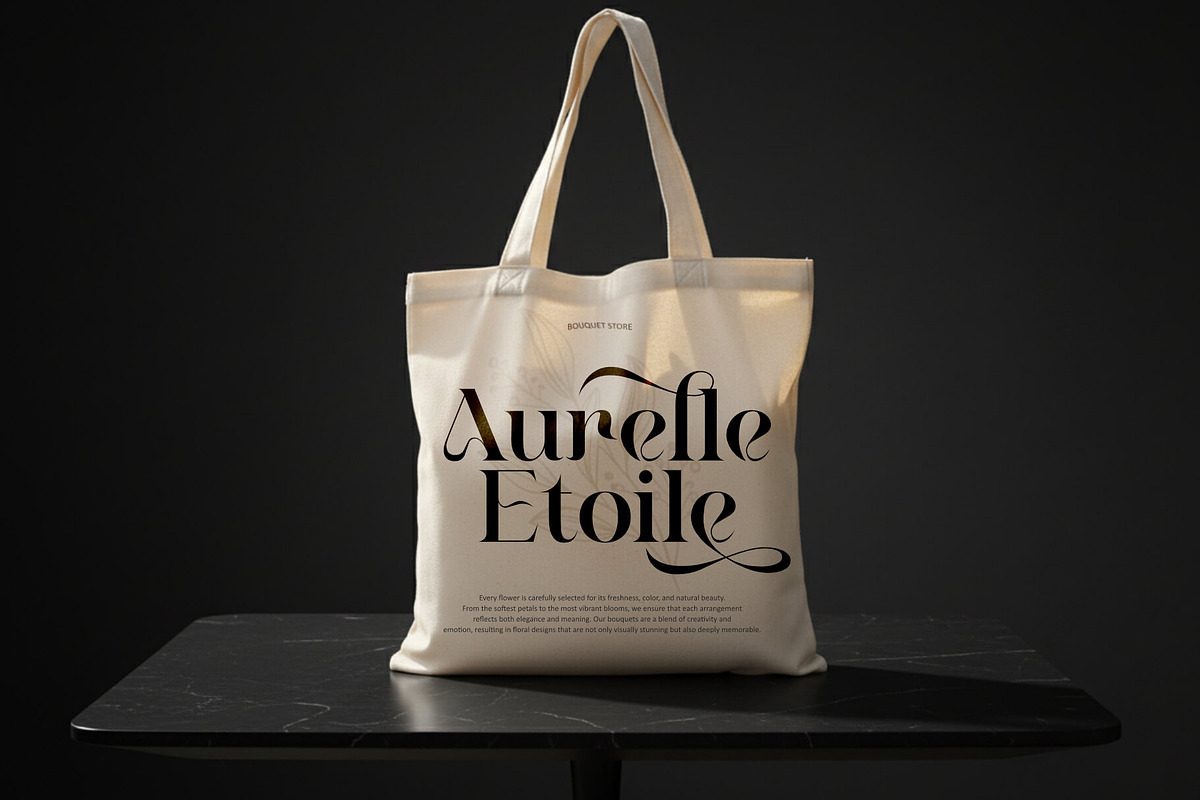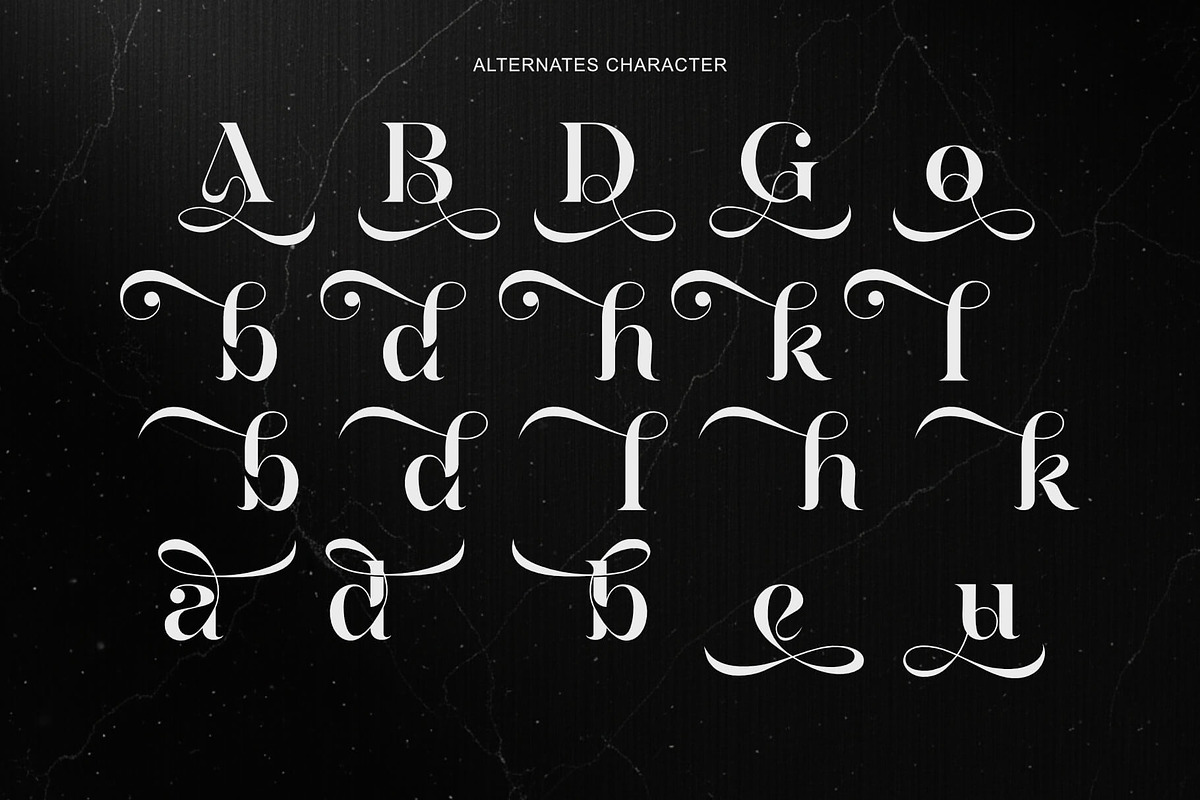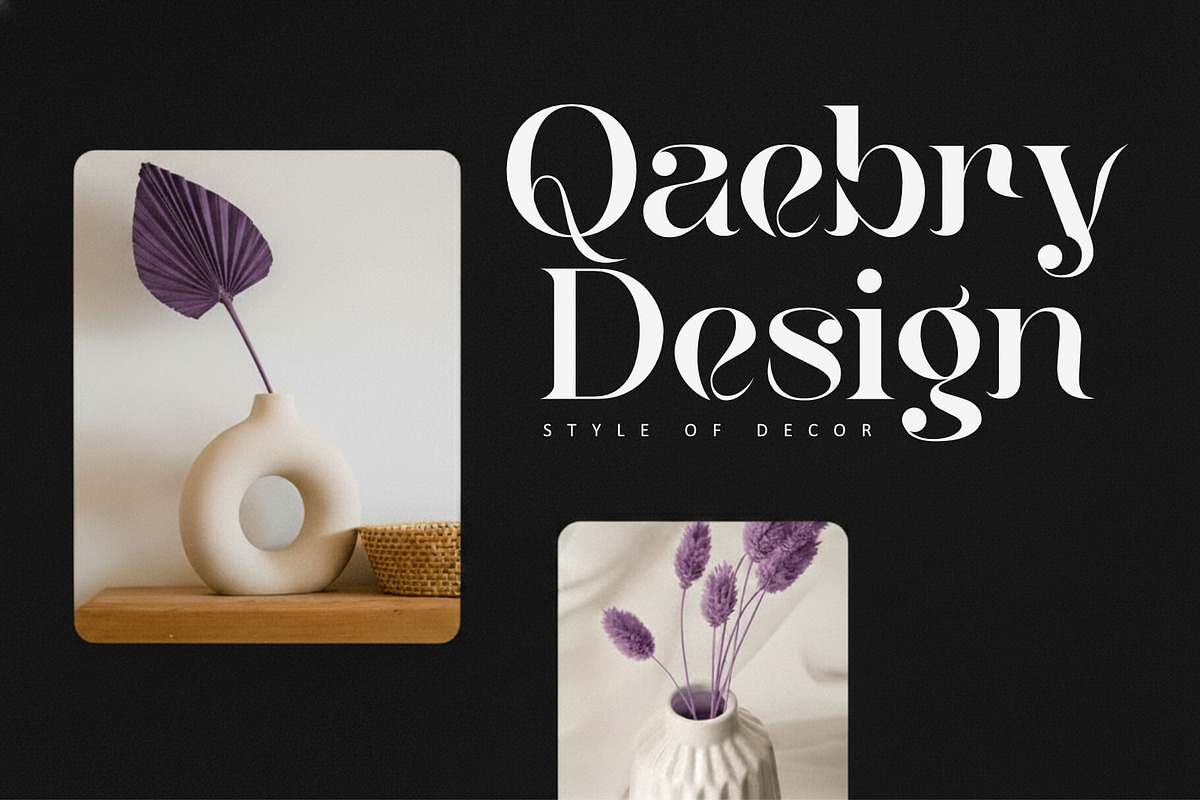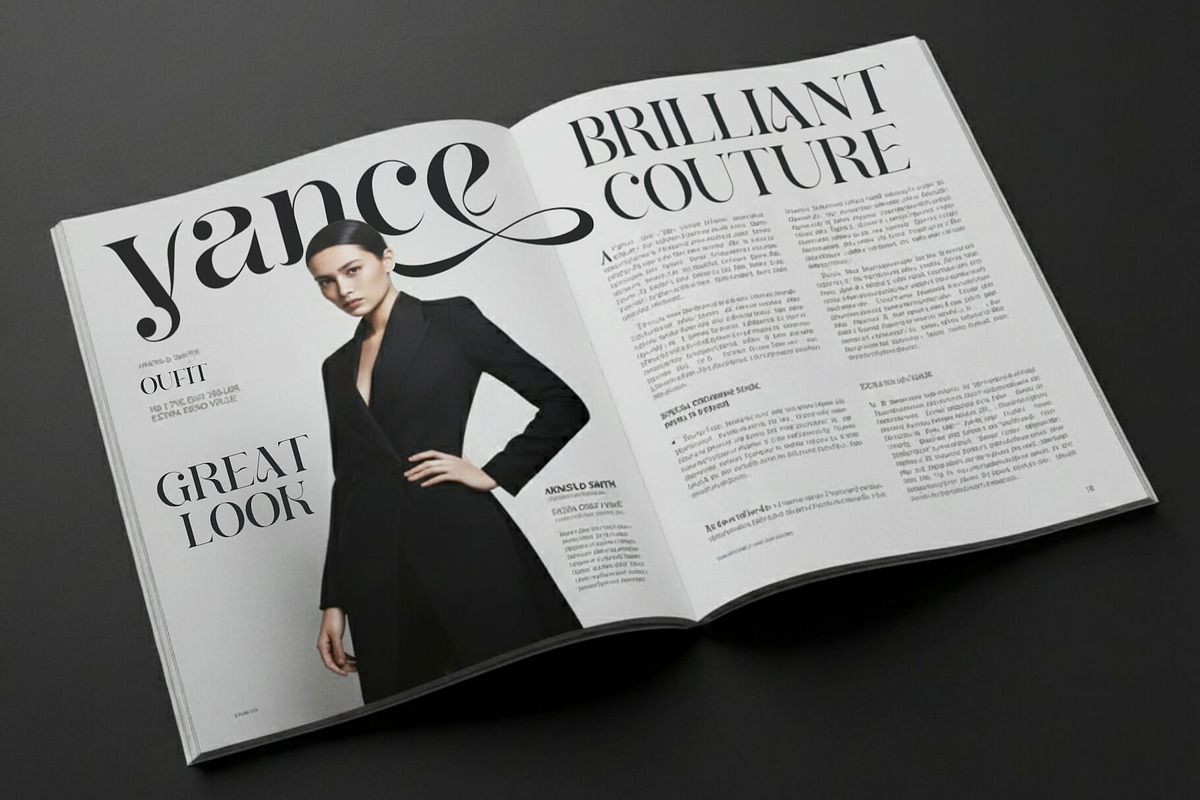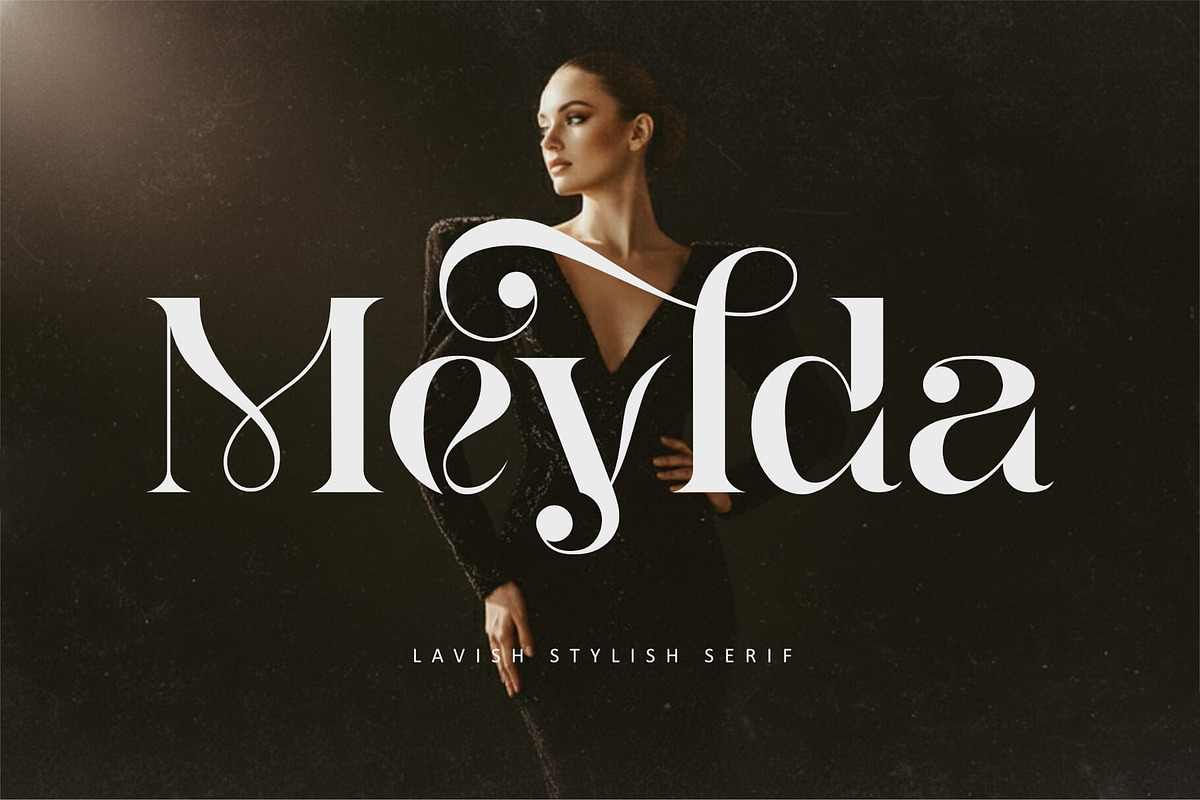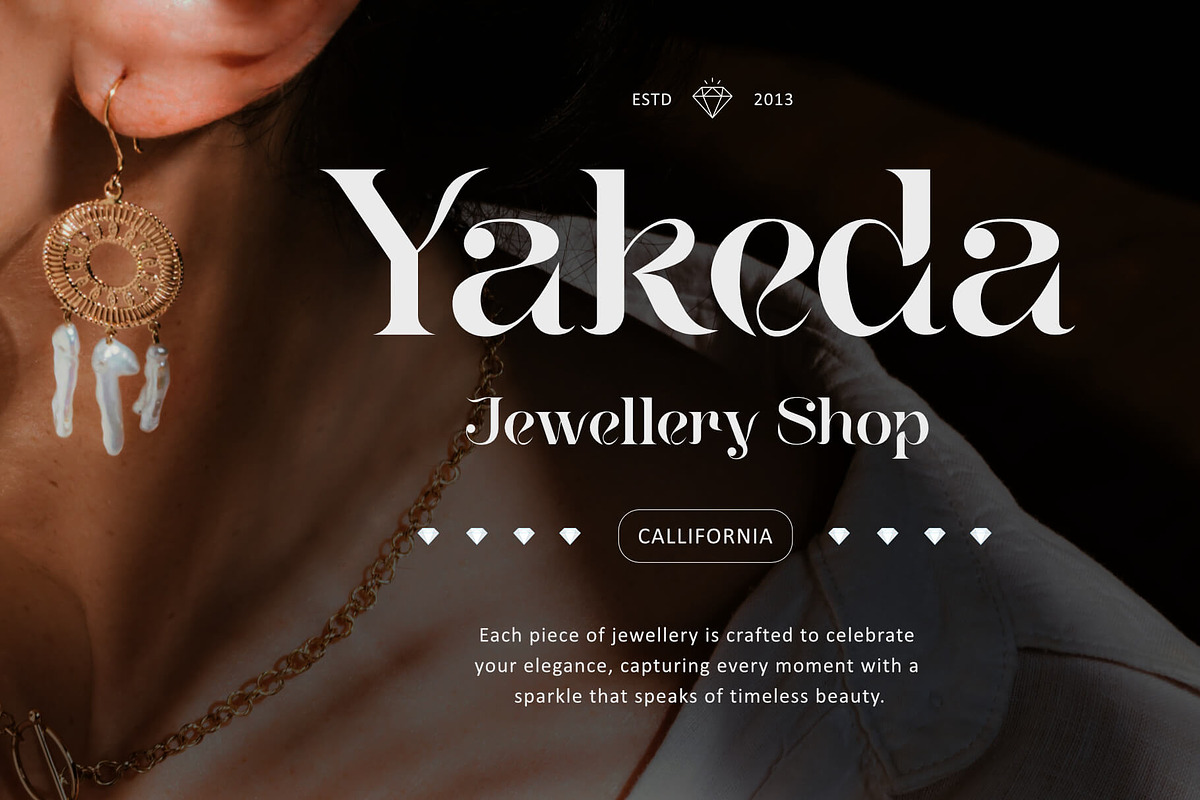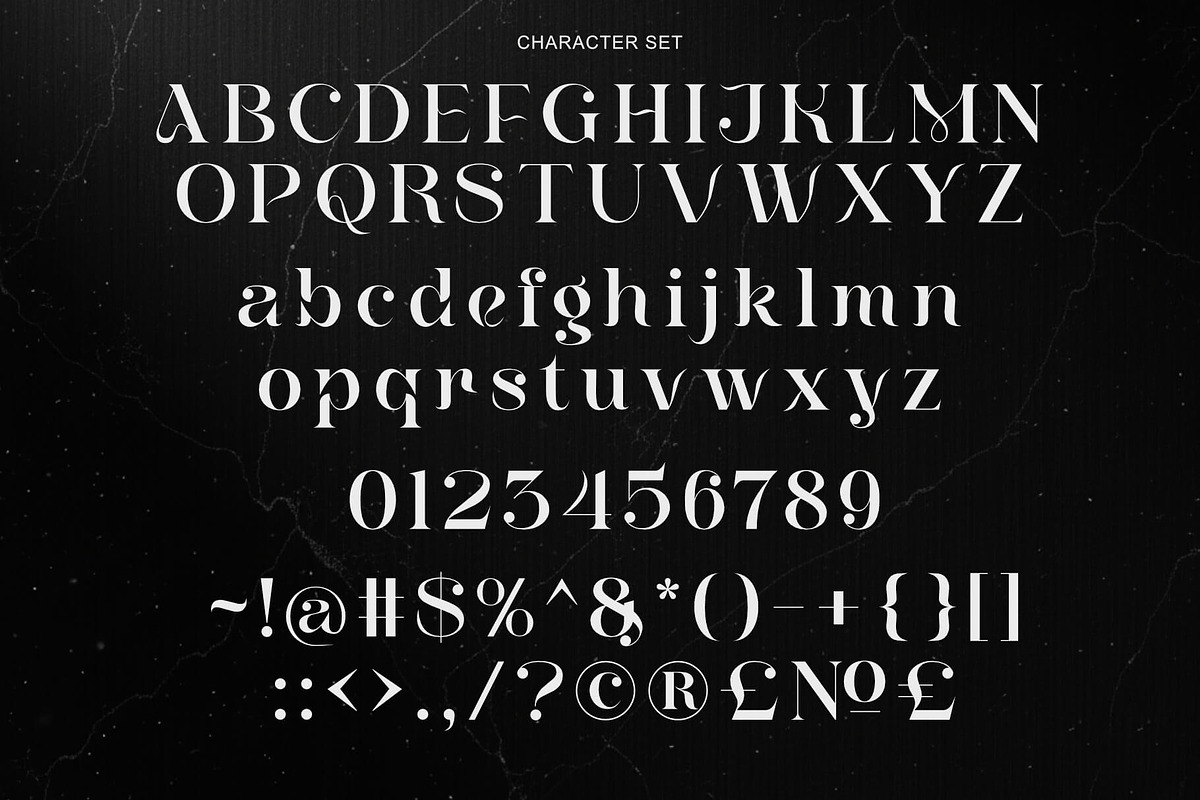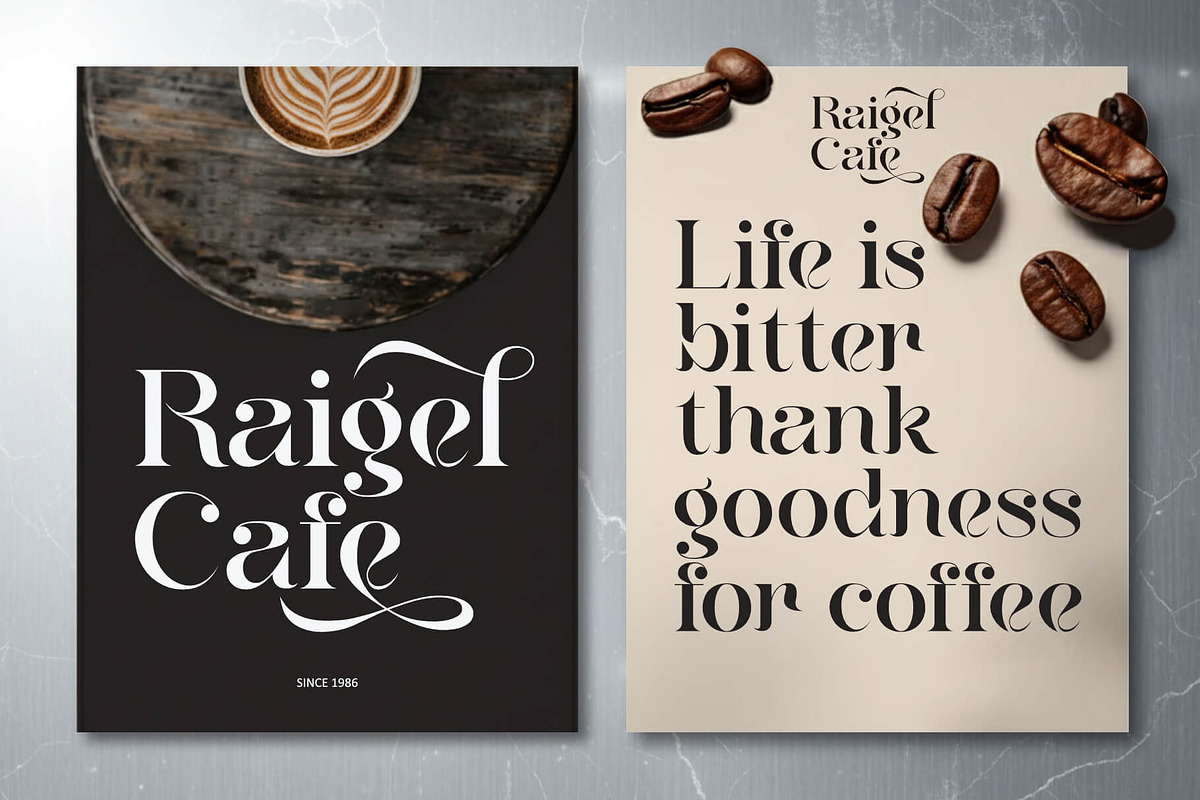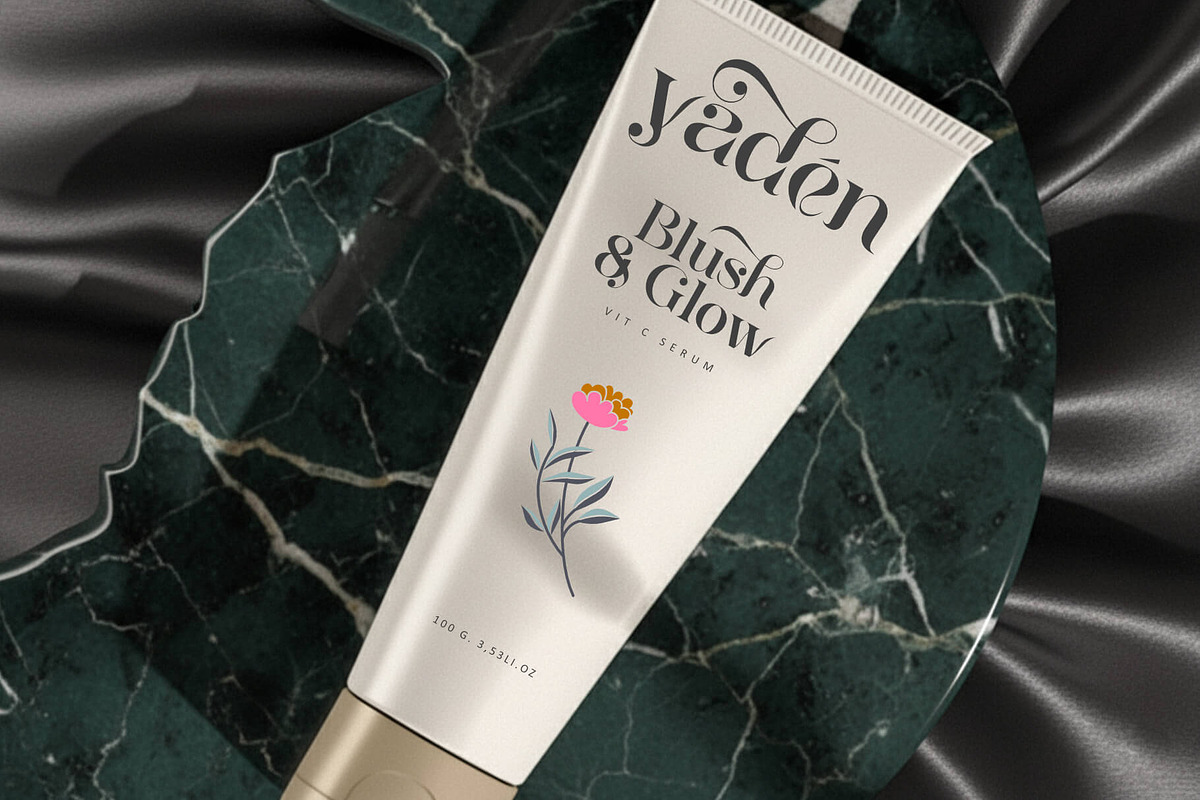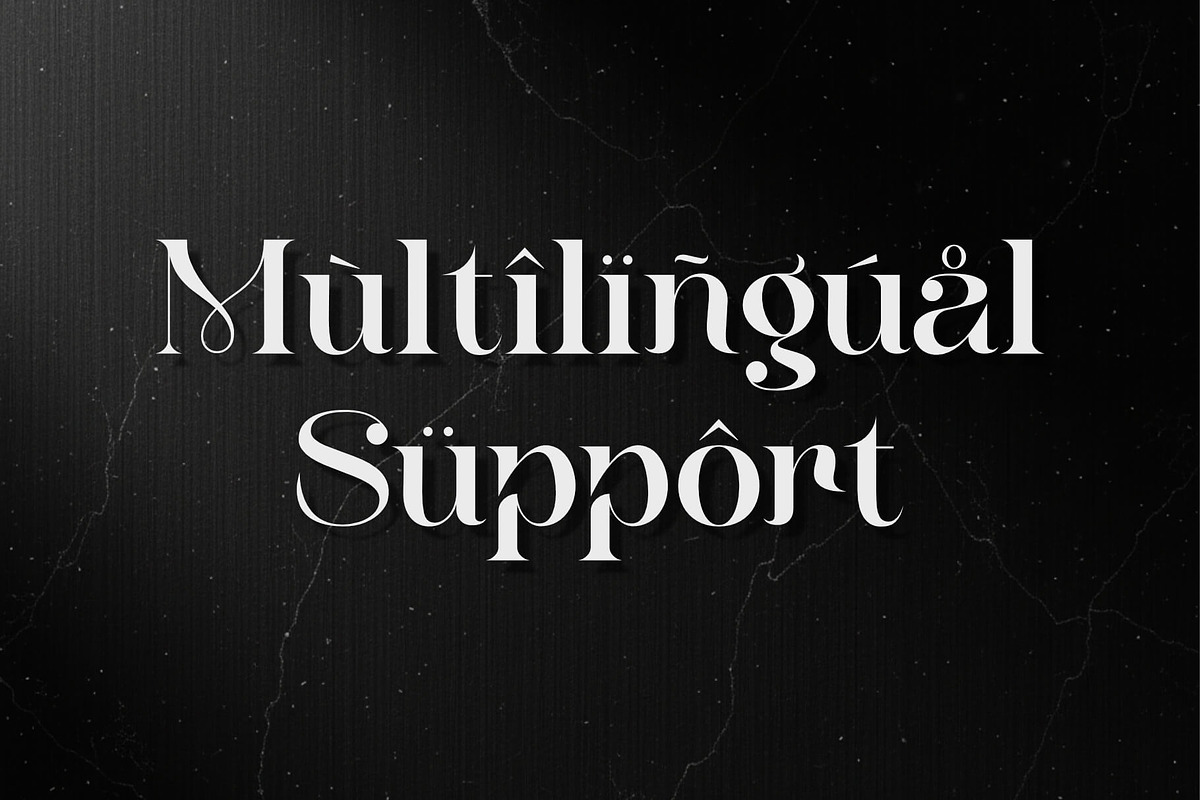
Meylda - Lavish Stylish Serif
Meylda – Lavish Stylish Serif
Meylda is a luxurious serif typeface crafted with elegant curves and exquisite ornamental details. Designed to deliver a premium and sophisticated look, this font blends classic serif structures with graceful swashes, creating a timeless and stylish typographic expression. Every letter is shaped with artistic precision, making Meylda perfect for projects that demand elegance and high–end aesthetics.
This typeface is ideal for fashion branding, boutique logos, editorial magazines, beauty products, café branding, wedding designs, and premium packaging. Its refined contrast and decorative strokes bring a captivating presence to any design.
Elegant & Stylish Serif
Beautiful Alternates and Decorative Swashes
High–contrast strokes with refined detailing
Complete uppercase & lowercase characters
Perfect for luxury branding, editorial design, packaging, beauty, café, and wedding projects
PERFECT FOR
Luxury Branding
Fashion & Beauty
Editorial Magazine
Café & Restaurant Logo
Wedding Invitations
Elegant Social Media Typography